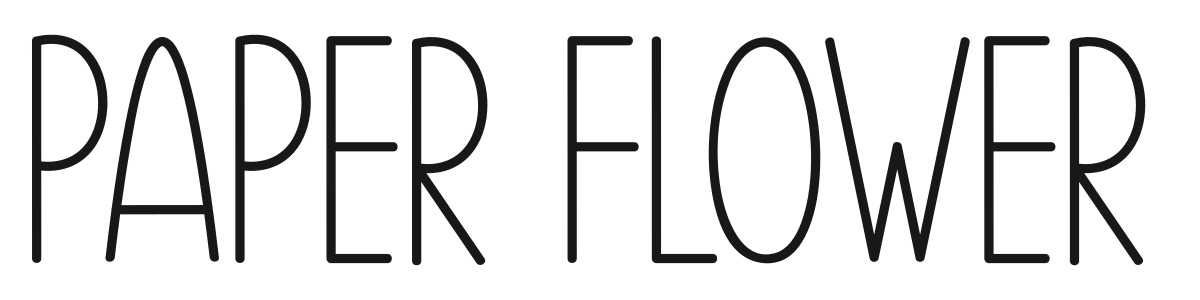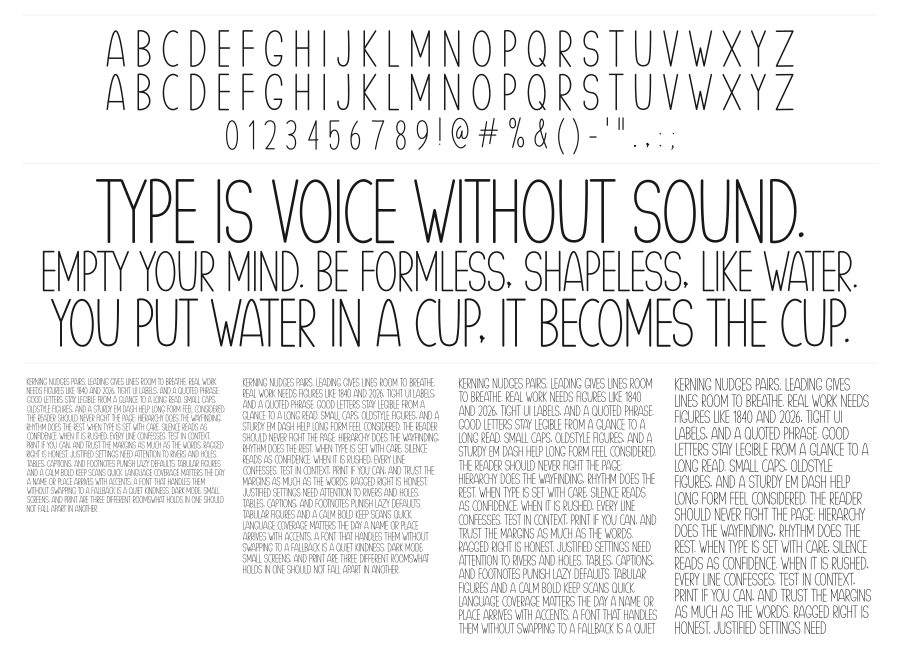
Paper Flower
Paper Flower is an ultra-thin condensed geometric sans with tall, narrow proportions and softly rounded terminals. The near-monoweight strokes and open circular forms give it a light, airy presence that reads as both modern and quietly romantic. It suits branding, editorial headlines, and packaging where restraint is the point.